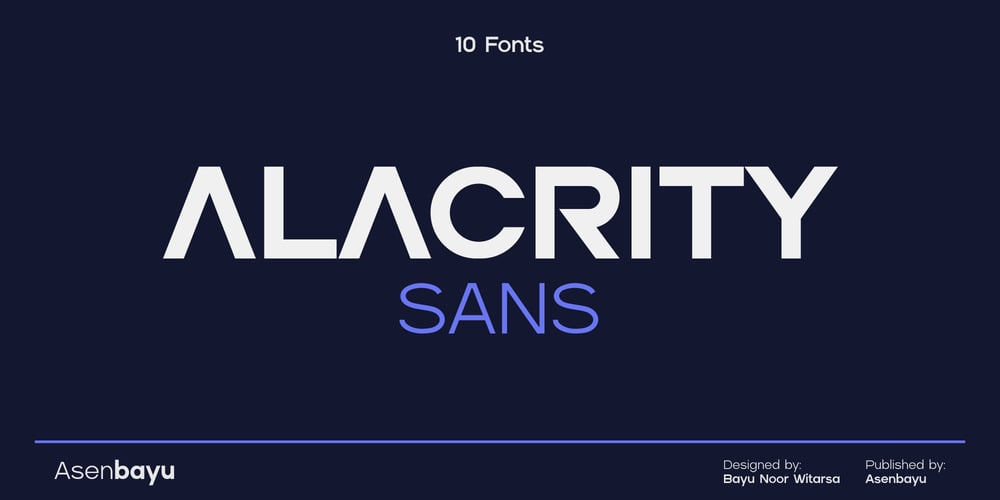
Alacrity Sans Font Family was designed by Bayu Noor Witarsa and published by Asenbayu. Alacrity Sans contains 10 styles and family package options. Alacrity Sans Fonts are modern multipurpose family fonts with sophisticated geometric shapes. You can use them in modern sophisticated design. These fonts are perfect for your various projects such: logo and brand identity, journal, business cards, web, stationary, display, sport product, technology and more. Alacrity Sans fonts feature opentype, kerning, and alternates packed in 10 fonts. Alacrity Sans fonts include uppercase letters, lowercase letters, numeral, punctuation and multilingual support.